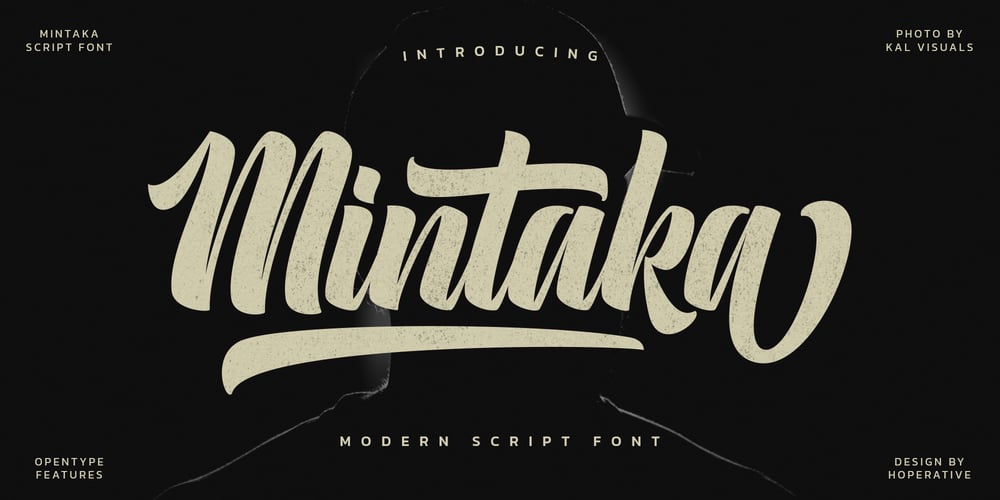
Mintaka Font Family was designed by Hamber Perdiansyah and published by Hoperative Design. Mintaka contains 1 styles and family package options. Mintaka is a gorgeous and retro-styled script font crafted to add tons of stylish character to your designs. This font is PUA encoded, which means you can access all of the glyphs and swashes with ease!This font can be used for logos, branding, invitations, stationery, wedding designs, social media posts, and much more!Mintaka Features : Ligature Kerning Stylistic Alternates Swash PUA encoded which means you can access all glyphs Multilingual Support